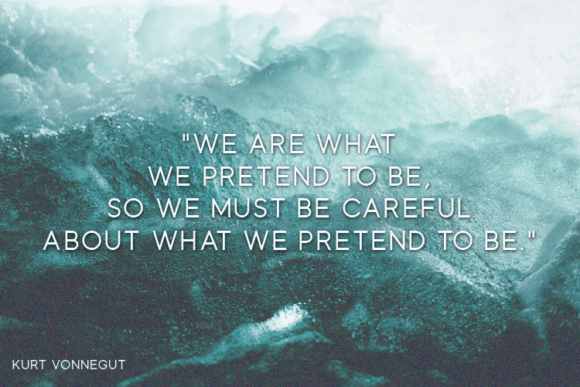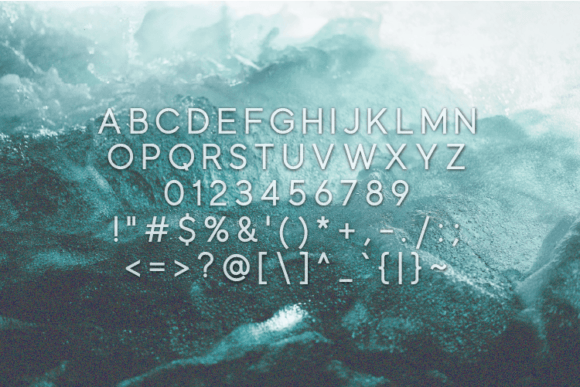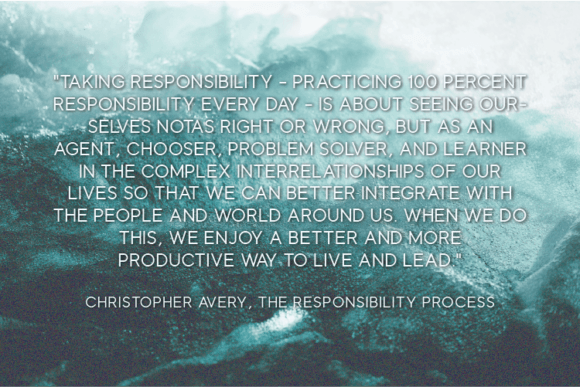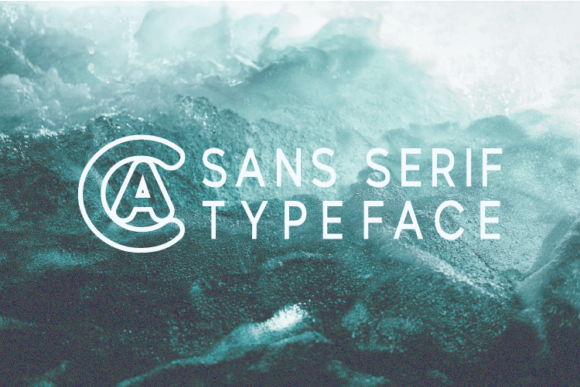
Unleash Your Creativity with Adventure Font: The Ultimate Modern Sans Serif Typeface
Are you a designer, crafty enthusiast, or simply someone who appreciates beautiful typography? Look no further than the Adventure Font, a modern, classy sans serif typeface that’s taking the design world by storm. With its sleek lines, elegant curves, and versatility, this font is perfect for a wide range of creative projects, from logos and weddings to invitations, quotes, advertisements, and more.
What Makes Adventure Font So Special?
Adventure Font is a game-changer in the world of typography. Its modern sans serif design gives it a fresh and contemporary feel, making it perfect for designers who want to create something new and exciting. The font’s clean lines and elegant curves ensure that it looks great in any context, whether you’re using it for a logo, a wedding invitation, or a magazine headline.
One of the things that sets Adventure Font apart from other typefaces is its extreme versatility. It’s a font that can be used for just about anything, from formal events to casual designs. Whether you’re creating a sophisticated logo for a corporate client or a playful invitation for a friend’s birthday party, Adventure Font is the perfect choice.
Adventure Font is a dream come true for designers and crafters who want to add a touch of elegance and sophistication to their work. With its wide range of uses, this font is perfect for:
- Logos: Create a lasting impression with a custom logo that showcases your brand’s personality and style.
- Weddings: Make your wedding invitations, programs, and decorations truly unforgettable with Adventure Font.
- Invitations: Whether it’s a birthday party, baby shower, or graduation celebration, Adventure Font is the perfect choice for creating beautiful and memorable invitations.
- Quotes: Add a touch of inspiration and motivation to your quotes with a font that’s both modern and elegant.
- Advertisements: Stand out from the crowd with eye-catching ads that feature Adventure Font.
- Print: Use Adventure Font in your brochures, flyers, and other print materials to create a lasting impression.
- Magazines: Add a touch of sophistication to your magazine layouts with Adventure Font.
Why Choose Adventure Font?
So why choose Adventure Font over other typefaces? Here are just a few reasons:
- Unique and Modern Design: Adventure Font has a unique and modern design that sets it apart from other sans serif typefaces.
- Highly Versatile: This font can be used for just about any creative project, making it a valuable addition to any designer’s toolkit.
- Elegant and Sophisticated: Adventure Font has an elegant and sophisticated feel that’s perfect for creating high-end designs.
- Easy to Read: The font’s clean lines and simple curves make it easy to read, even at small sizes.
Adventure Font is a game-changer in the world of typography. Its modern sans serif design, elegance, and versatility make it the perfect choice for designers, crafters, and anyone who appreciates beautiful typography. Whether you’re creating a logo, invitation, quote, or advertisement, Adventure Font is the ultimate typeface for adding a touch of sophistication and style to your work. So why wait? Download Adventure Font today and unleash your creativity!